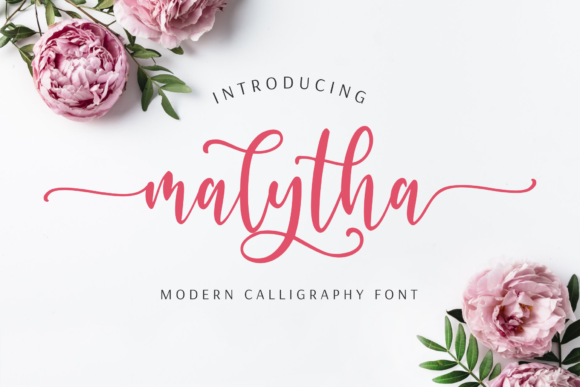
Feast your eyes on the enthralling Malytha font, a captivating script that exudes elegance and grace. Step into a world of creative possibilities where your designs come alive with a touch of handwritten charm. Crafted with care by the talented Sibelumpagi Studio, Malytha is a masterpiece waiting to adorn your projects.
Malytha, with its flowing lines and graceful curves, adds a touch of timeless beauty to your creative endeavors. Its varying baseline and assortment of stunning alternates create a dynamic visual experience, capturing the attention of your audience. This font is versatility personified, effortlessly adapting to a myriad of projects.
Create eye-catching logos and branding that resonate with your audience, leaving a lasting impression. Craft elegant invitations and stationery that evoke a sense of enchantment and sophistication. Elevate your wedding designs with Malytha's romantic allure, transforming your special day into an unforgettable affair.
Unleash your creativity on social media posts and advertisements, captivating your followers with visually stunning content. Malytha's charm extends beyond the digital realm, adding a touch of artistry to print media, book covers, and product packaging.
Let your imagination soar with Malytha, the font that speaks to your creative soul. Harness its power to transform your designs into works of art, leaving your audience captivated and inspired. Join the creative revolution and embrace the boundless possibilities that await you with Malytha.